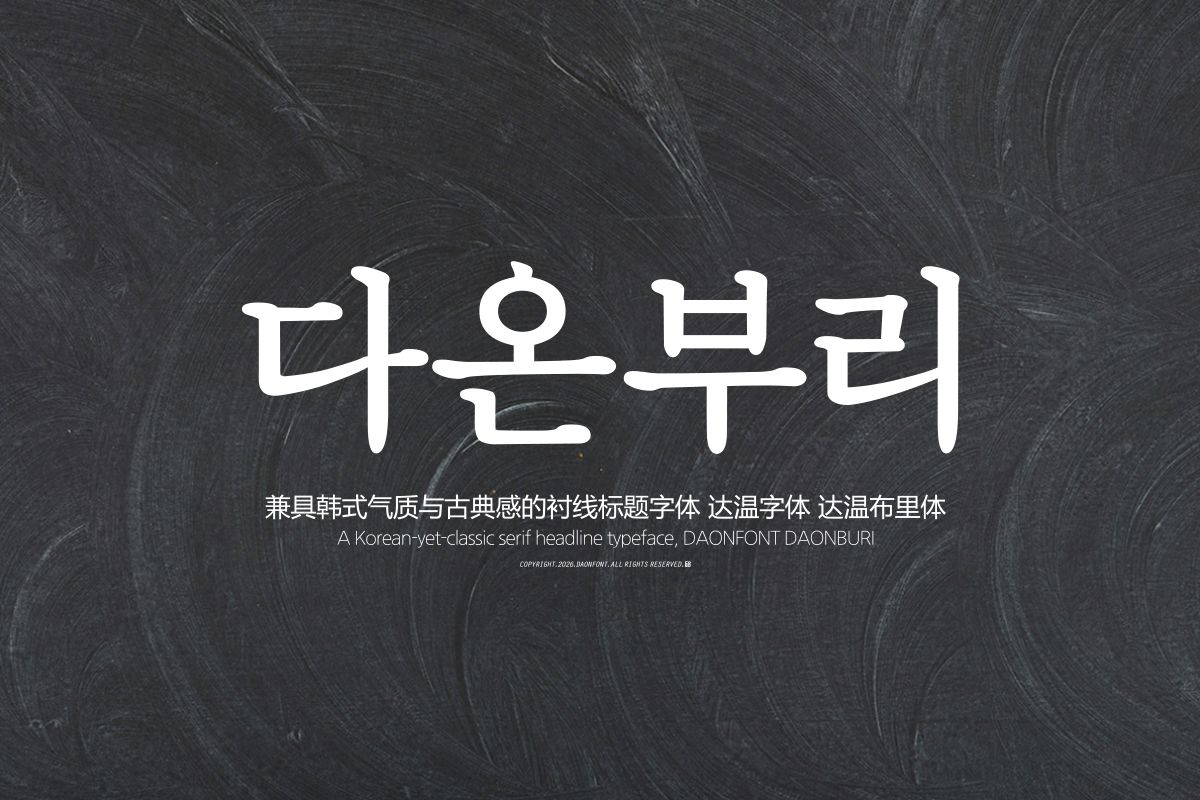
DAON DAONBULI(B)
DAONBULI is a typeface that captures the dignity of classical fonts while being based on a modern Batang structure. The harmonious blend of serifs and curves maintains a classic atmosphere, while the overall form is refined in a modern way, conveying a sophisticated and balanced impression.